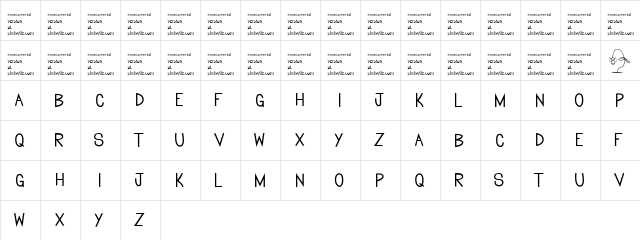
Flowers for you Regular Font Preview
Flowers for you Regular
Flowers for you Regular Font Details
| Foundry | Fonts by Chris Vile |
| Designer | Chris Vile |
Design Context for Flowers for you Typeface
Flowers for you takes a measured approach to typography — its balanced proportions and neutral character make it a reliable workhorse for both digital and print work.